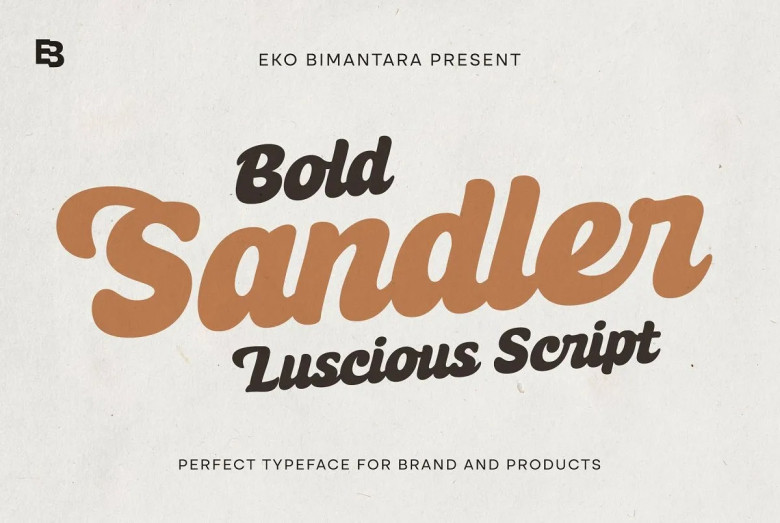
Sandler Font
Sandler is an elegant, soft, warm script typeface ideal for titles, branding and headers. Featuring contemporary script style letters that create an upscale and luxurious aesthetic. Available as both Regular Script and Extrude versions – with Regular Script being more flexible for logos,
branding packaging while Extrude is tactile with an edged-back appearance making an impactful statement in headers, headlines and other situations – Sandler makes an impactful statement in both styles!